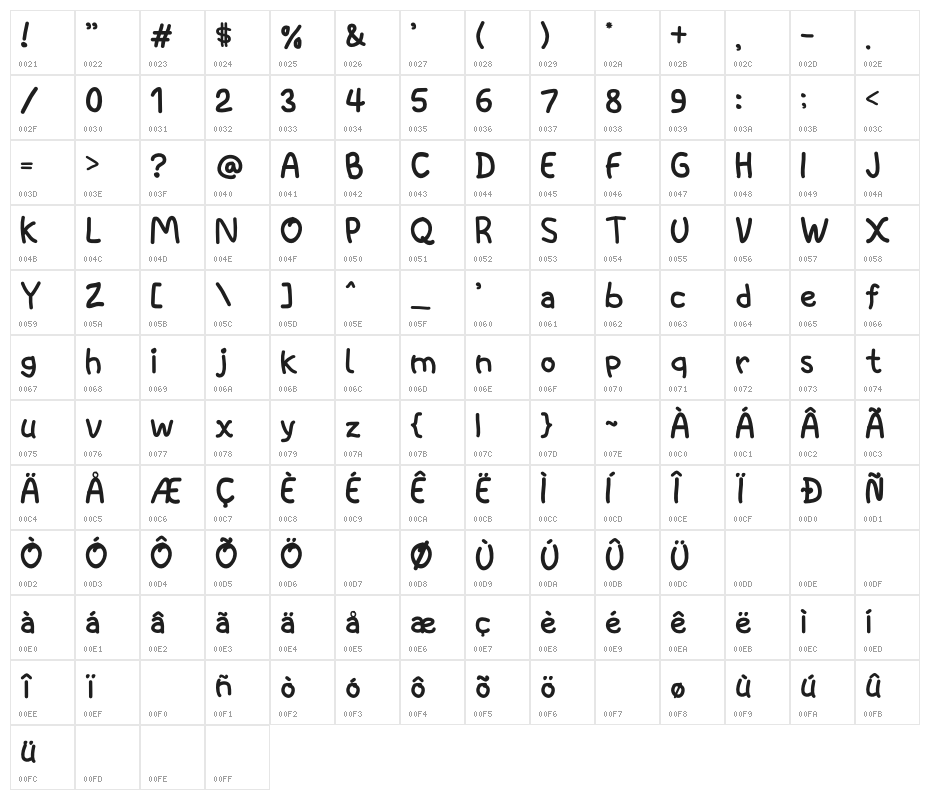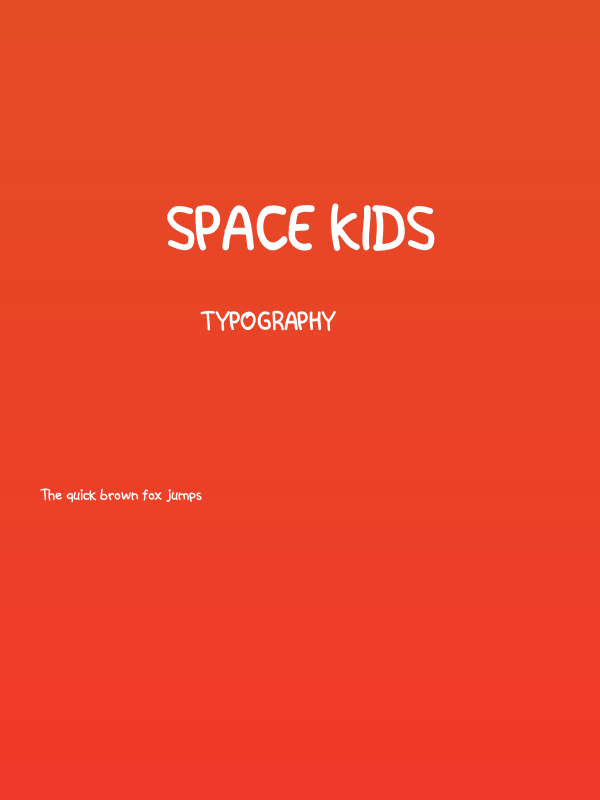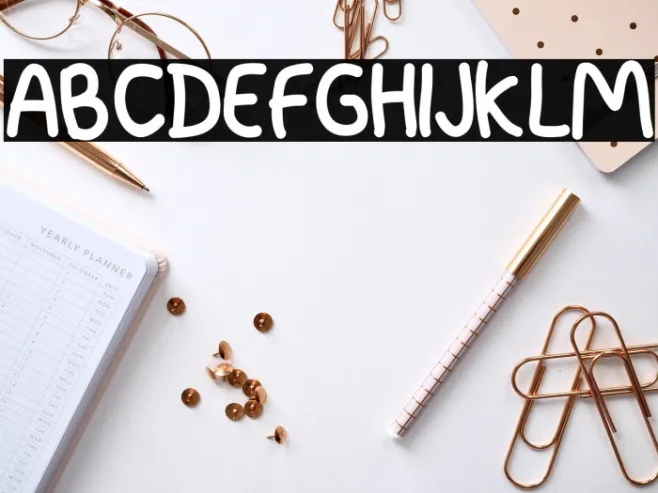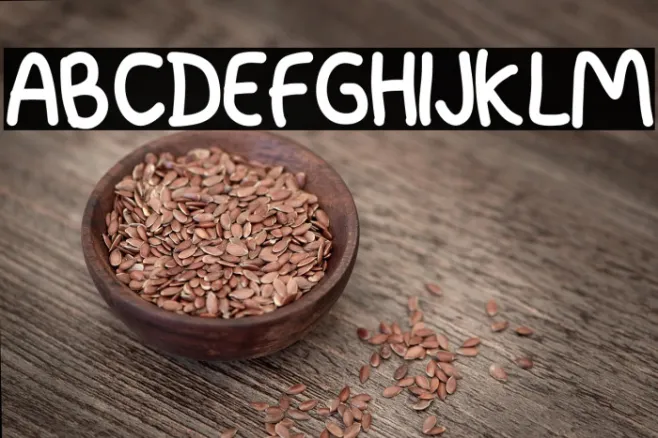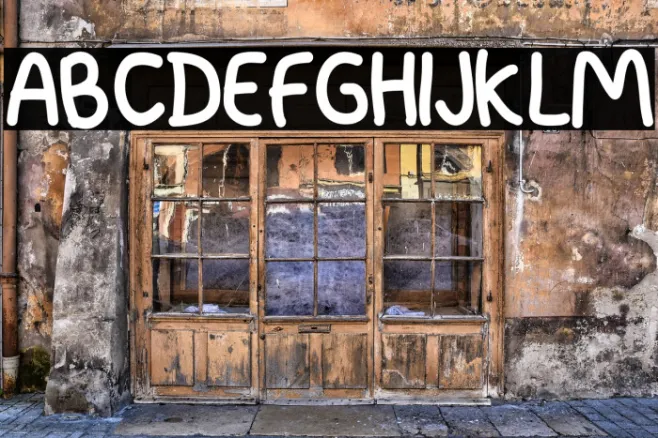
Space kids Font
Space kids Description
This playful and whimsical font features rounded, bubbly characters that evoke a sense of fun and creativity. The letters are slightly irregular, giving them a hand-drawn appearance that adds to their charm. The uppercase and lowercase letters maintain a consistent style, with smooth curves and a friendly demeanor. Numbers and special characters are designed to match the playful aesthetic, making this font ideal for projects aimed at children or those requiring a lighthearted touch. The overall look is casual and approachable, perfect for adding a sense of joy and imagination to any design.
| Proposed Projects | Ideal for children's books, educational materials, playful branding, and creative posters. |